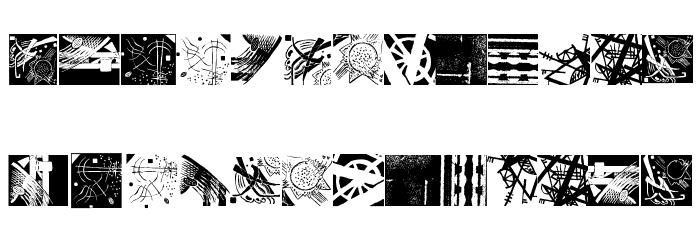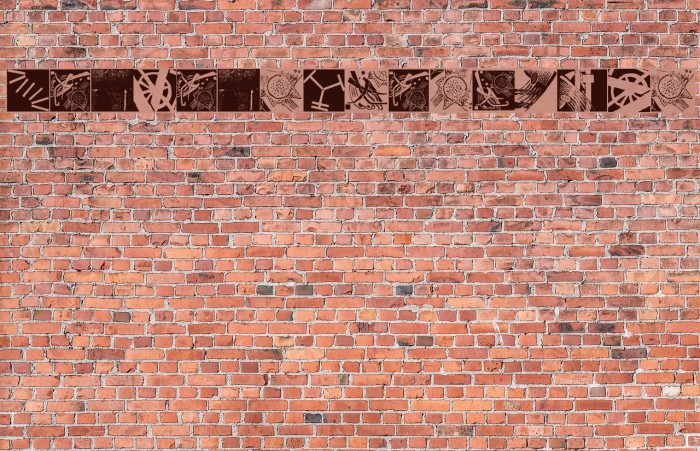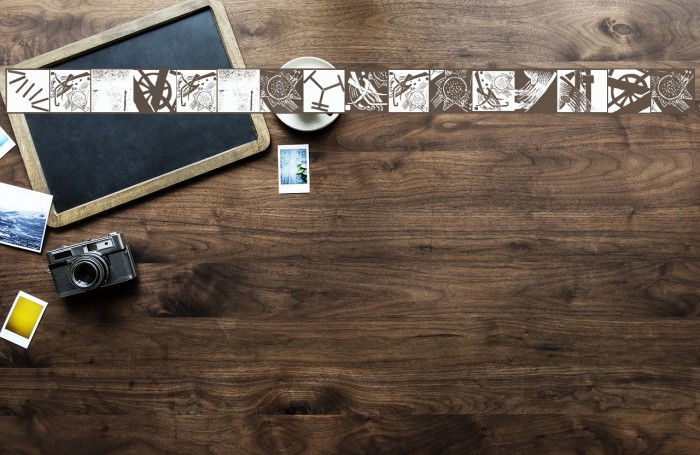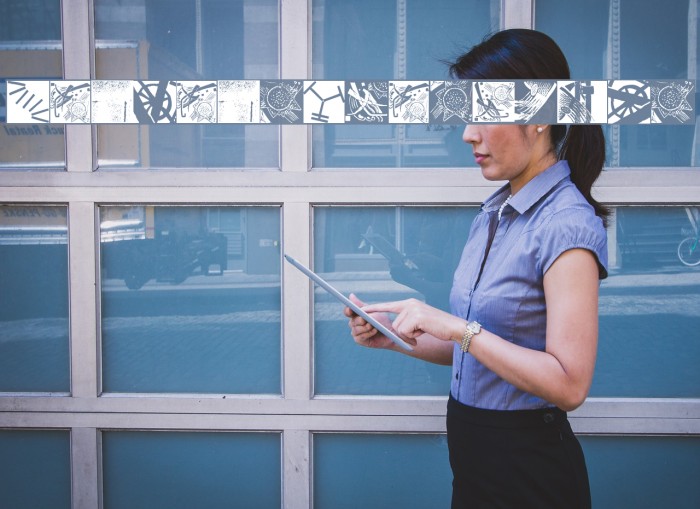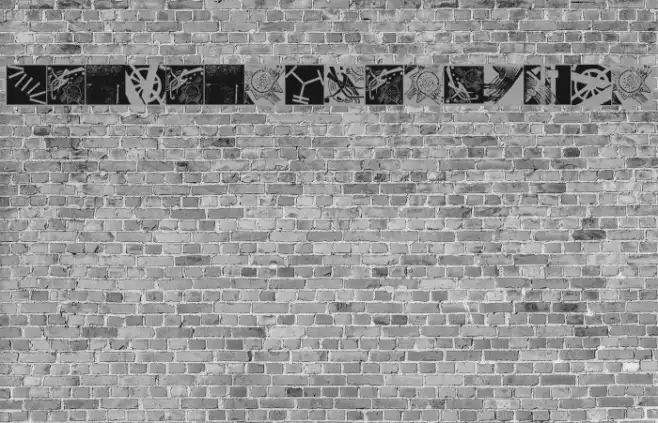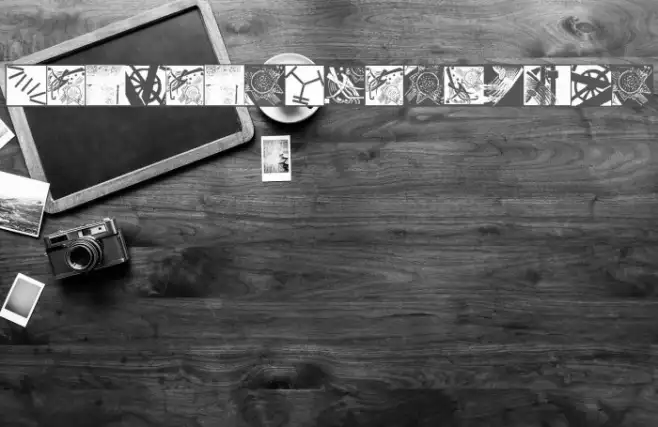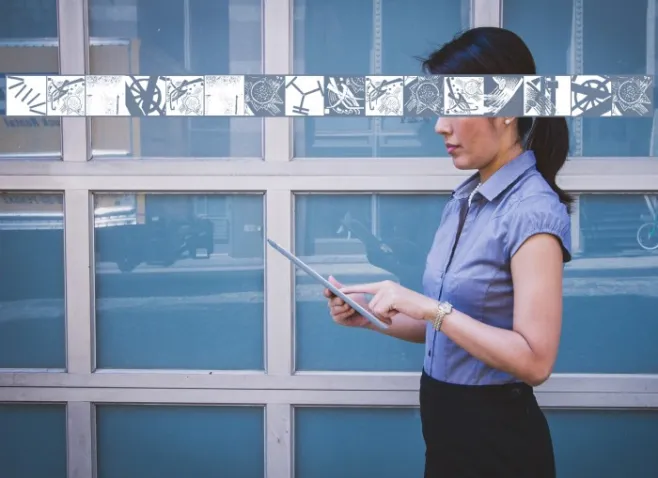
BauhausFragments Font
This font is a highly decorative and abstract representation of characters, drawing inspiration from the Bauhaus art movement. Each character is a unique composition of geometric shapes, lines, and patterns, creating a fragmented and artistic appearance. The design is bold and visually striking, with a strong emphasis on contrast and form. The characters are not easily legible in a traditional sense, as they prioritize artistic expression over readability. This font is more of an artistic statement than a practical typeface, making it suitable for projects that aim to convey creativity and avant-garde aesthetics.
An abstract, Bauhaus-inspired decorative font with geometric and artistic character designs.
- Proposed Projects: Ideal for art projects, experimental design, avant-garde posters, and creative branding that seeks to make a bold visual statement.
- Overall Style: Modern, Artistic, Avant-garde
- Use Case: Artistic displays, Posters, Creative branding